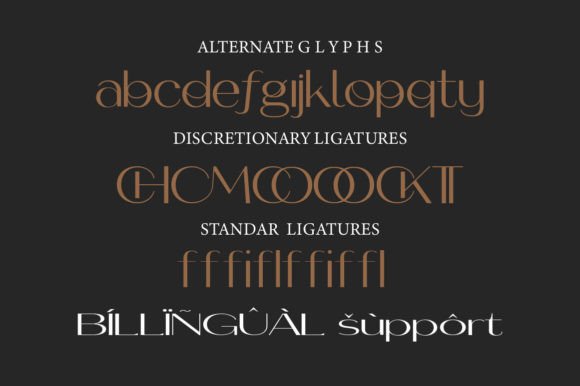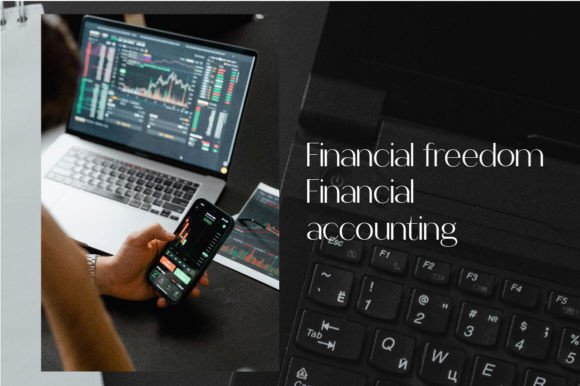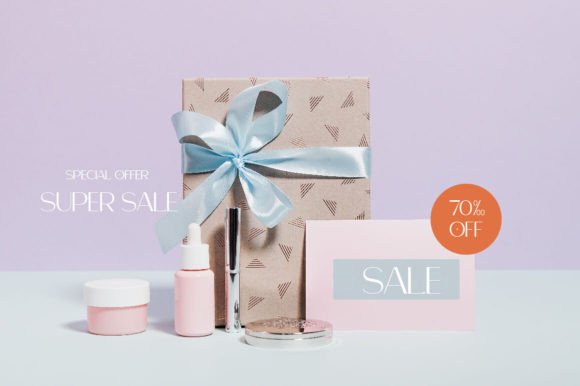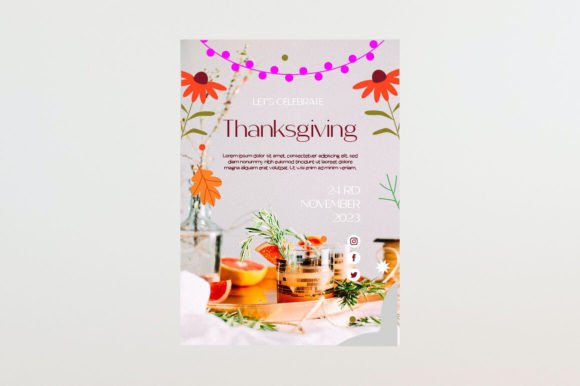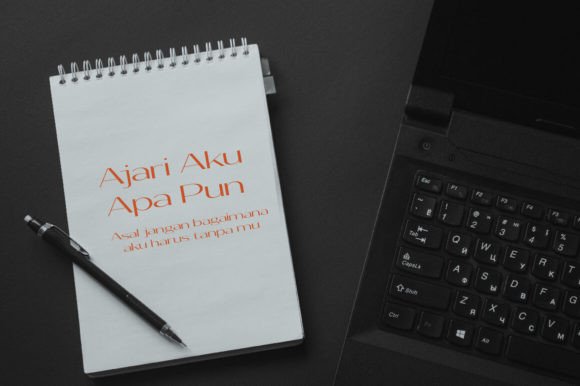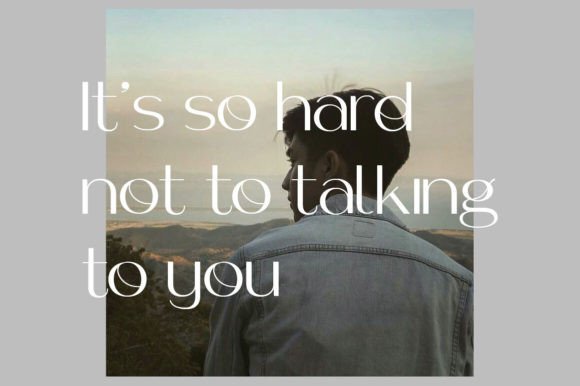
Brucherie Font
Introduction Brucherie font. This font is a new elegant San serif font that will add a touch of luxury and style to your projects. This is a very versatile font that works well in both large and small sizes.
This font is suitable for branding projects, logo design, clothing branding, packaging, magazine titles, advertisements stationer, wedding, typography quotes, magazine or book covers, website headers, clothing, branding, packaging design, also fashion-related branding or editorial design displays, logotype, digital design, document type, t-shirts, postcards, editorials, magazine headlines, product packaging, and displaying masculine and feminine qualities. .
Making your designs more modern and professional with Brucherie font.
Features:
– Standard glyphs
– Alternate glyphs and Ligatures
– Numeral, symbol and punctuation